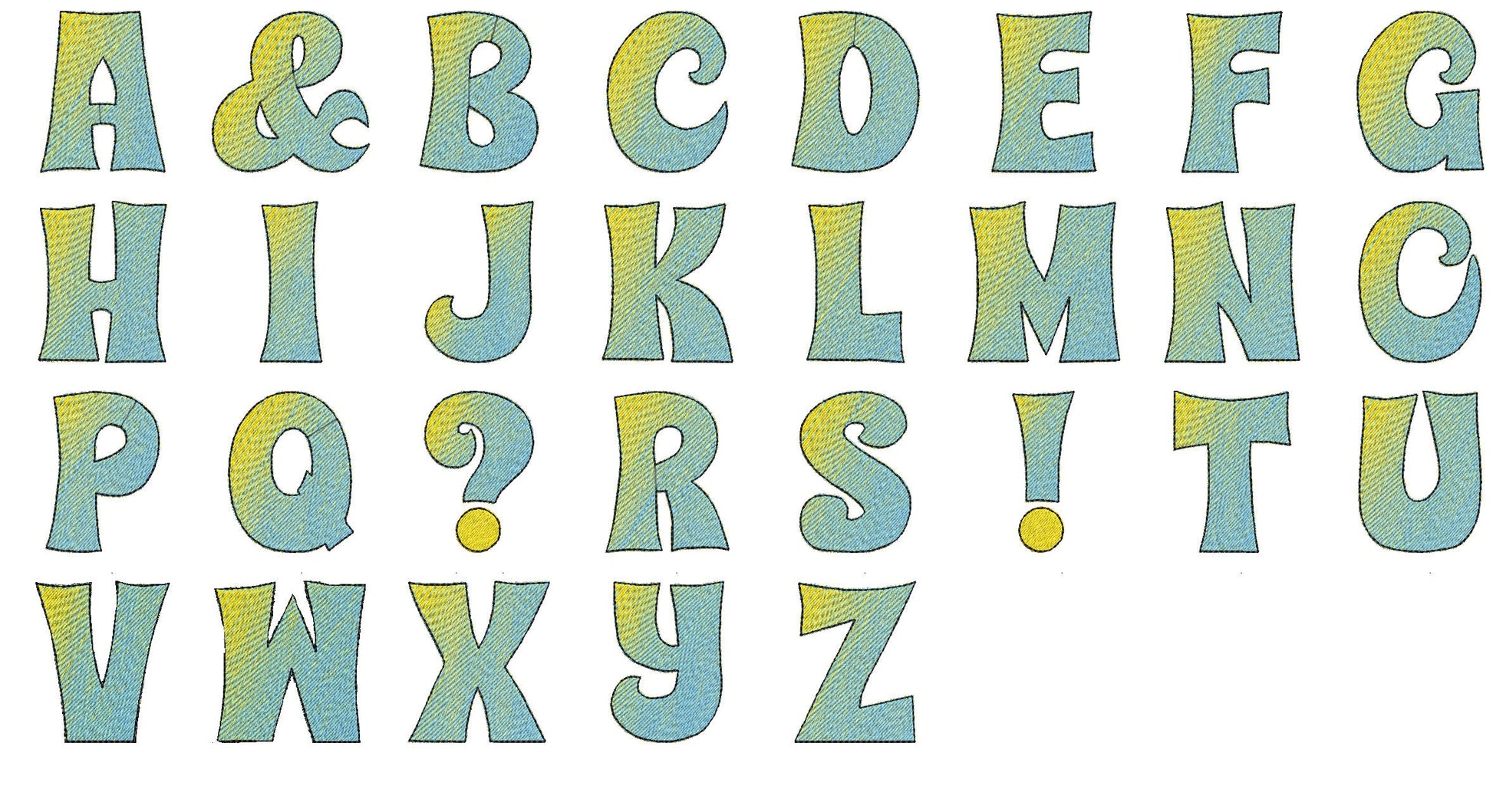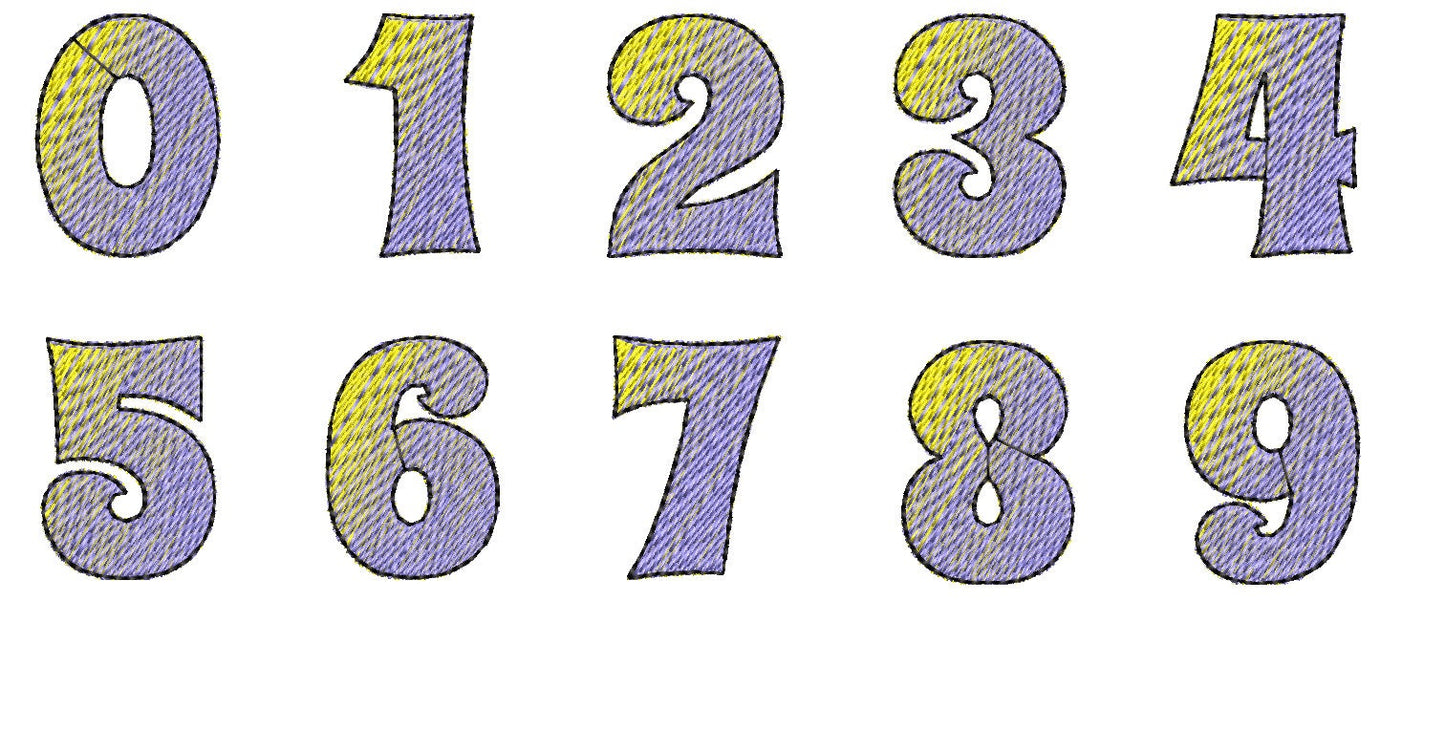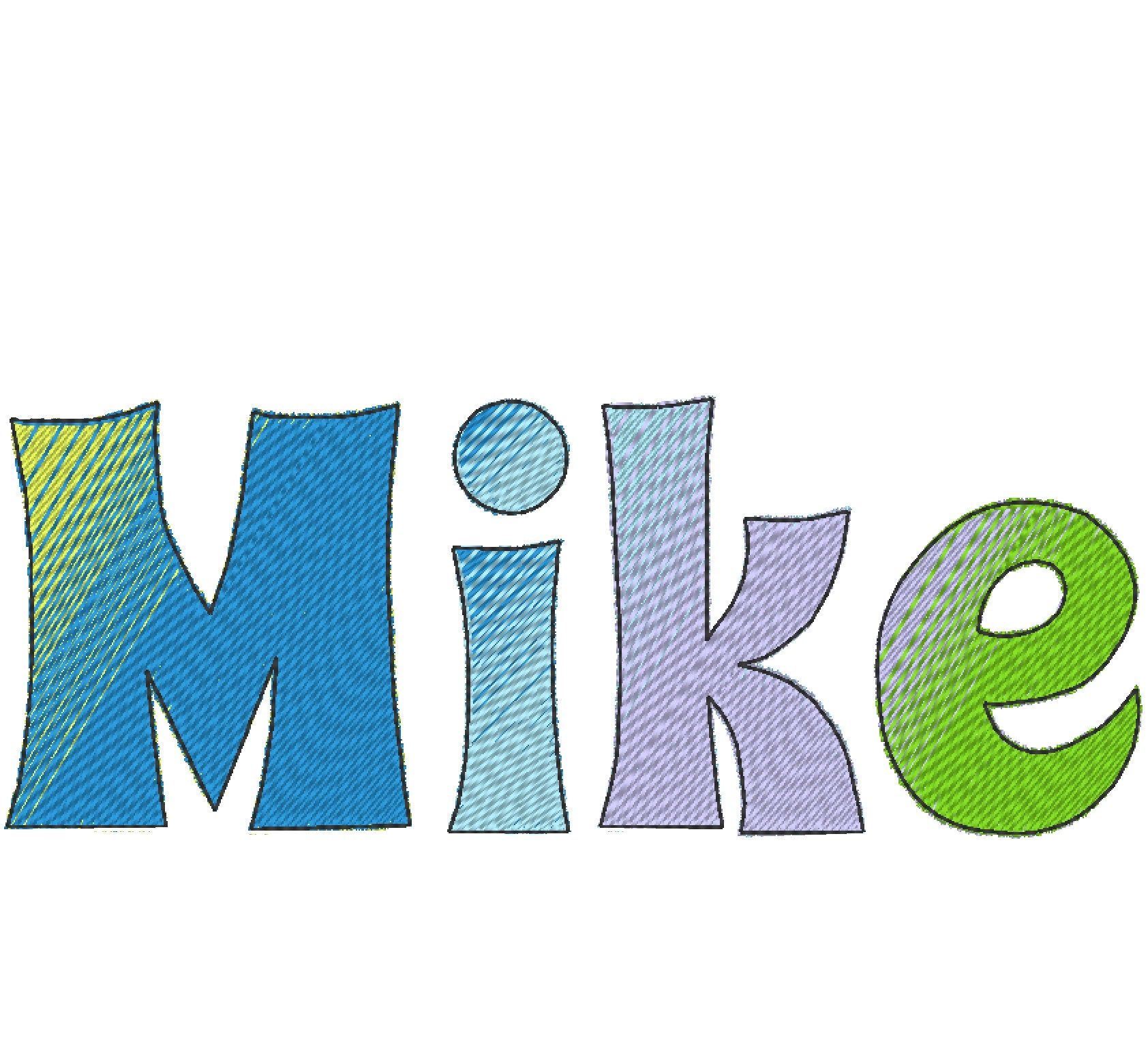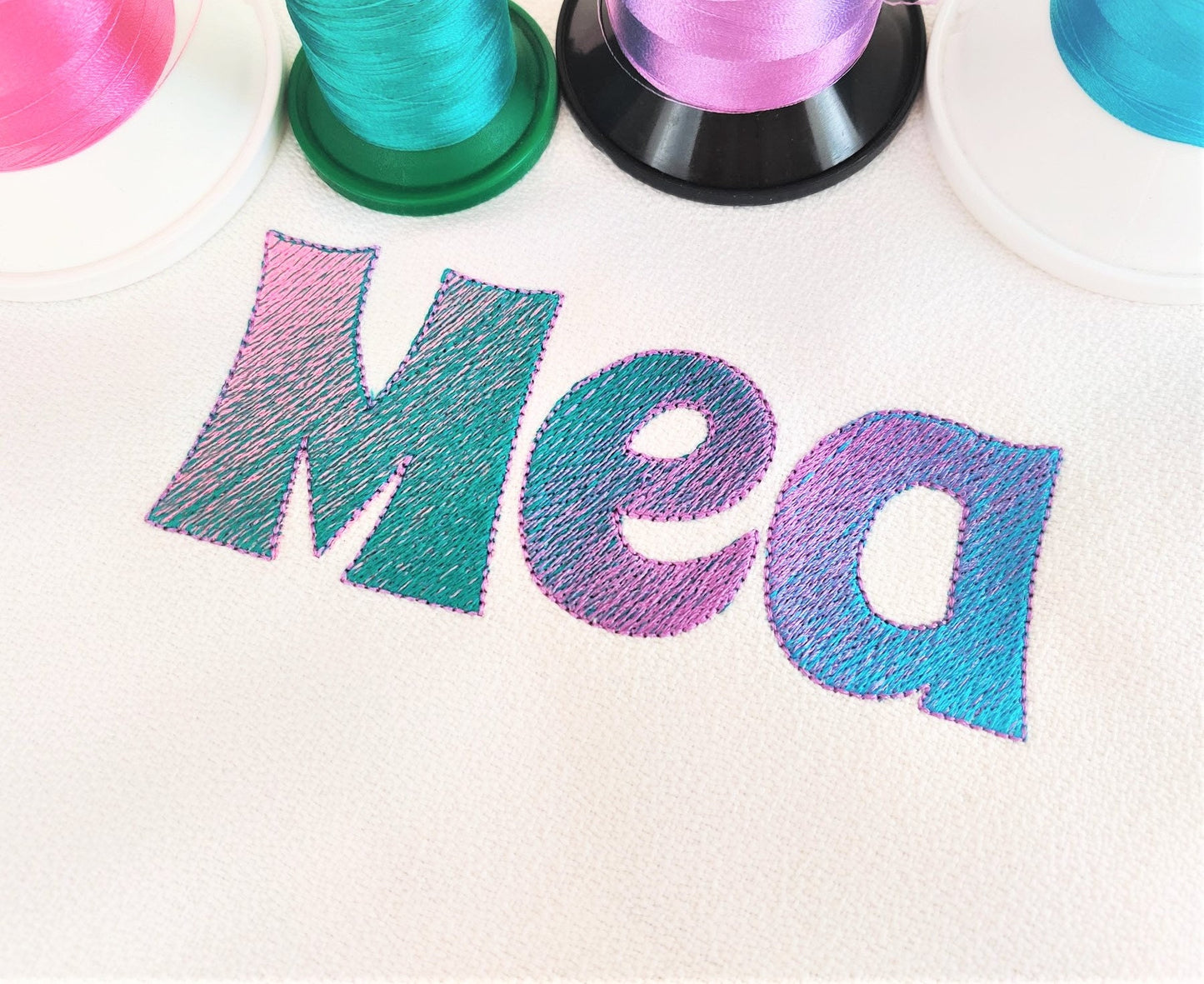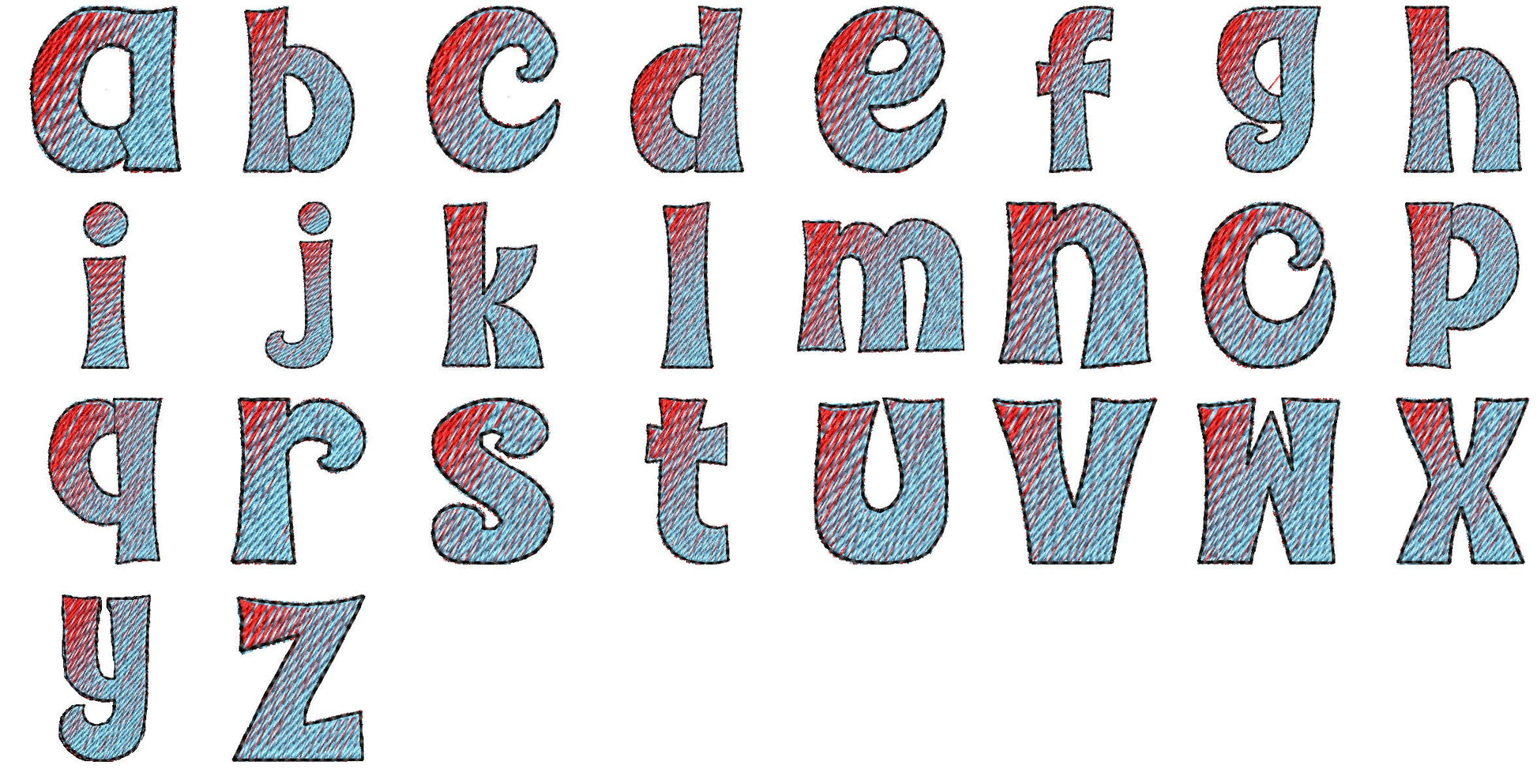
Or click to open the linkA filled block font with an iridescent gradient from two ordinary thread colors. No special thread needed. Great for names and monograms.
One side of each letter is stitched mostly in one color and the other side in the second. Uppercase and lowercase letters, numbers and punctuation in five sizes: 1.5, 1.7, 2, 3 and 3.5 inches.